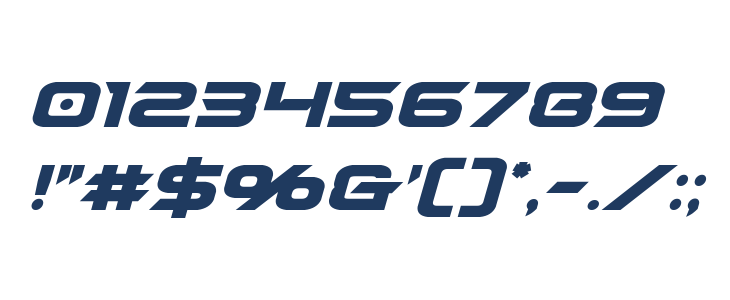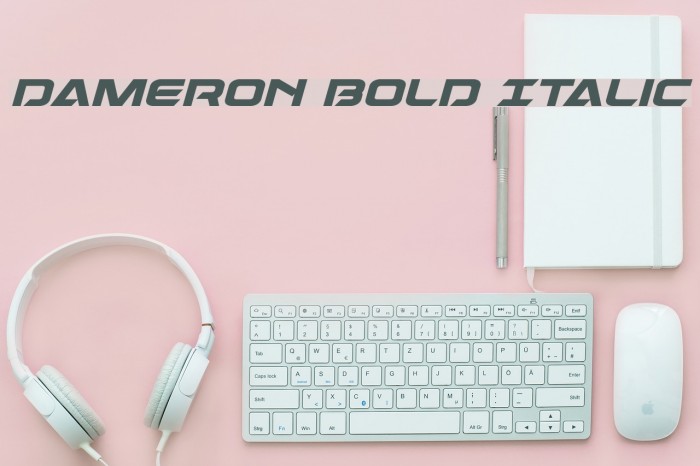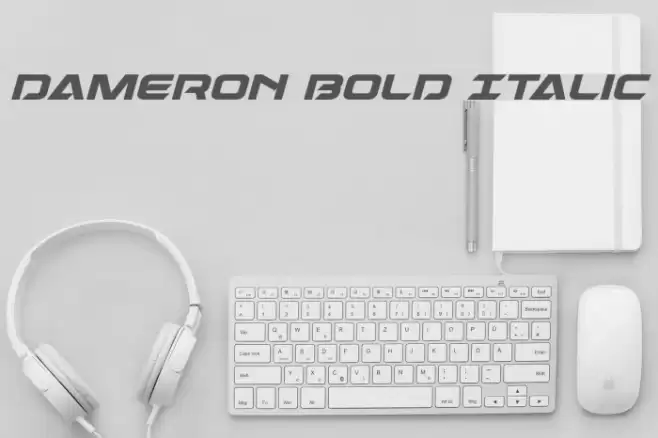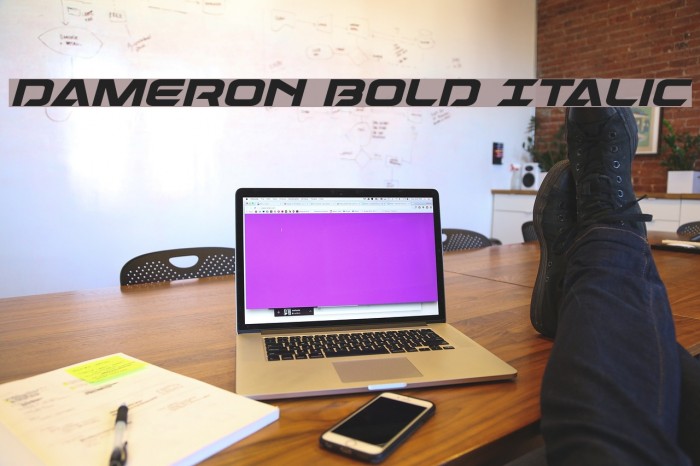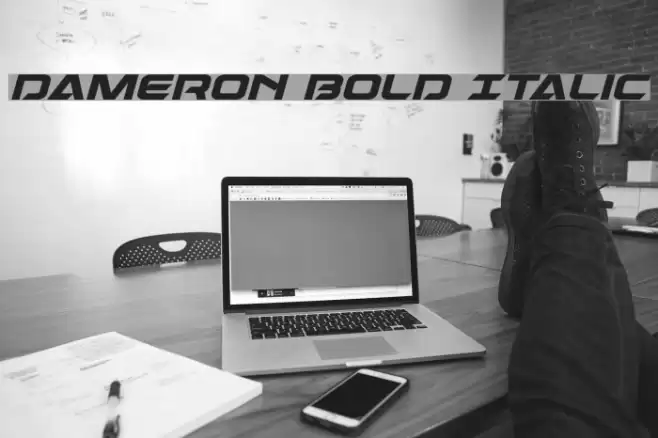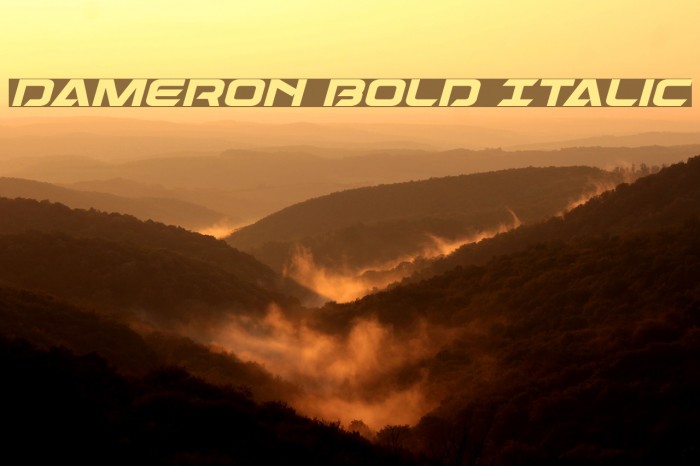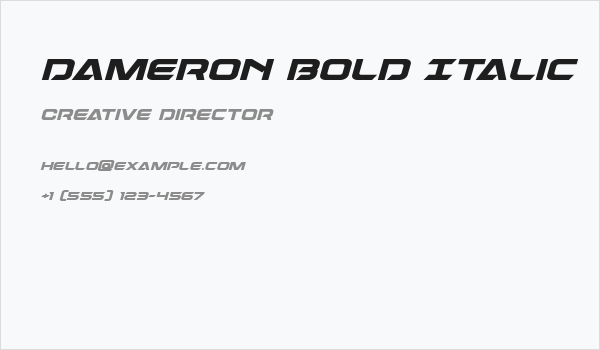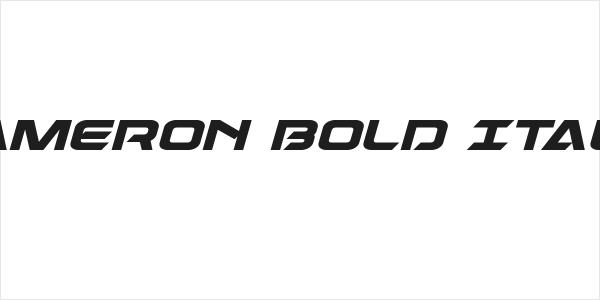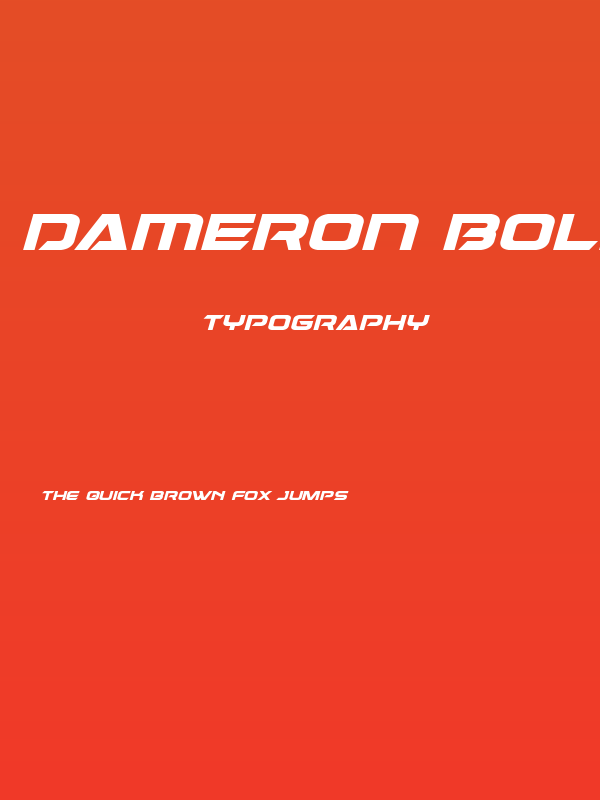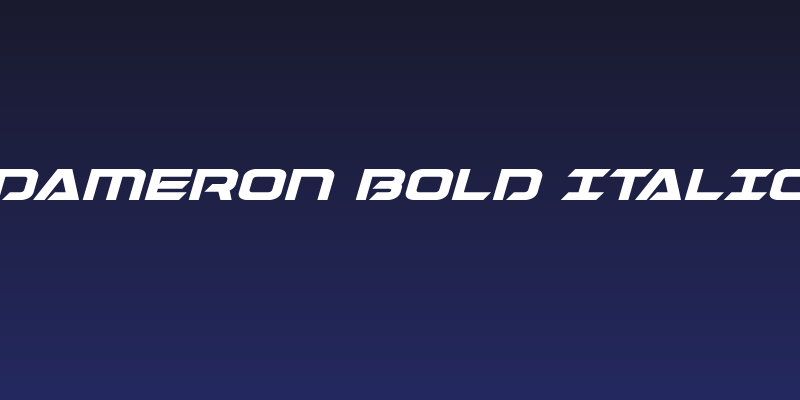
Dameron Bold Italic Font
Dameron Bold Italic Description
This font features a bold and italicized style with a futuristic and dynamic appearance. The characters are slanted, giving a sense of motion and speed. The strokes are thick and consistent, contributing to its boldness, while the italic angle adds a sleek, modern touch. The design is clean and geometric, with sharp edges and a uniform structure across all characters. The numbers and special characters maintain the same stylistic approach, ensuring cohesion throughout the font set.
| Proposed Projects | Ideal for projects that require a modern and energetic look, such as tech branding, sports team logos, or sci-fi themed designs. |